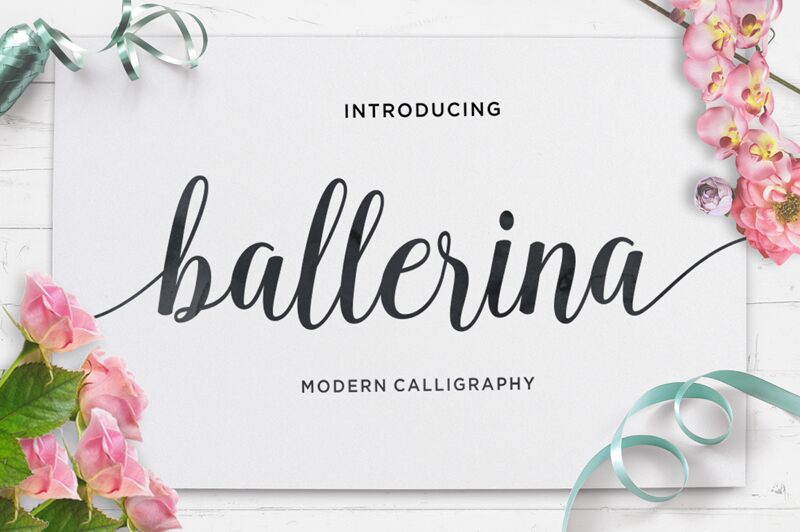
Ballerina Script font, crafted by Rastype, captures the essence of calligraphic elegance with its smooth and flowing strokes. This free font boasts a graceful style reminiscent of classical ballet, making it perfect for adding a touch of sophistication to any design project. Its beautifully swirled forms and intricate details make it ideal for invitations, branding, and decorative purposes.
The script's aesthetic appeal lies in its delicate balance between ornate design and readability, providing an exquisite backdrop for eye-catching headlines or elegant wedding stationery. Available for download, Ballerina Script font can enhance both personal and professional projects with its refined charm.